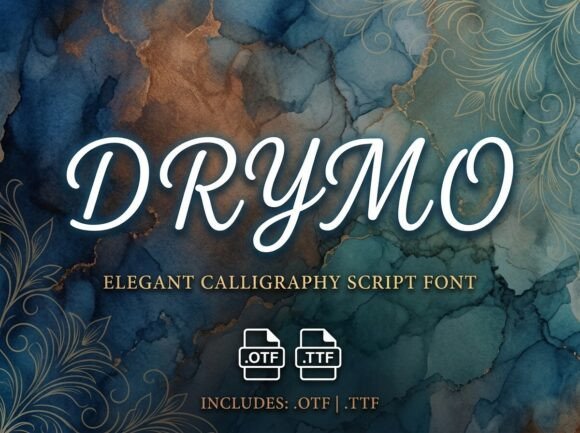
Unleash Your Creativity with Drymo Font: A Stunning Decorative Display Font
Are you tired of using the same old fonts for your designs? Do you want to add a touch of uniqueness and creativity to your projects? Look no further than Drymo Font, a stunning decorative display font designed to be the center of attention. With its unique artistic elements and strong visual personality, this font is perfect for creators who want to break away from the ordinary and make a statement.
What Makes Drymo Font Special?
Drymo Font is a versatile font that is perfect for a variety of design projects, including bold headlines, artistic logos, and creative packaging. Its unique artistic elements and strong visual personality make it stand out from other fonts, giving your designs a professional and polished finish. Whether you’re a designer, craftsperson, or DIY enthusiast, Drymo Font is the perfect choice for anyone looking to add a touch of creativity to their projects.
Key Features of Drymo Font
- Unique Artistic Elements: Drymo Font features unique artistic elements that set it apart from other fonts. Its strong visual personality makes it perfect for designs that require a bold and eye-catching font.
- Versatile: This font is versatile enough for use in a variety of design projects, including bold headlines, artistic logos, and creative packaging.
- Professional and Polished Finish: Drymo Font gives your designs a professional and polished finish, making it perfect for creators who want to produce high-quality work.
- ALL-CAPS (Uppercase Only): This font is specifically designed for high-impact headlines, logos, and decorative initials where every letter is a work of art. It does not include lowercase letters.
- Use it for Headlines: Drymo Font is perfect for bold headlines and titles. Use it to add a touch of creativity and uniqueness to your designs.
- Use it for Logos: This font is also great for creating artistic logos and branding materials. Its unique artistic elements make it stand out from other fonts.
- Use it for Packaging: Drymo Font is perfect for creative packaging designs. Use it to add a touch of personality and creativity to your packaging materials.
- Unique and Creative: Drymo Font is a unique and creative font that will set your designs apart from others.
- Versatile: This font is versatile enough for use in a variety of design projects.
- Professional and Polished Finish: Drymo Font gives your designs a professional and polished finish.